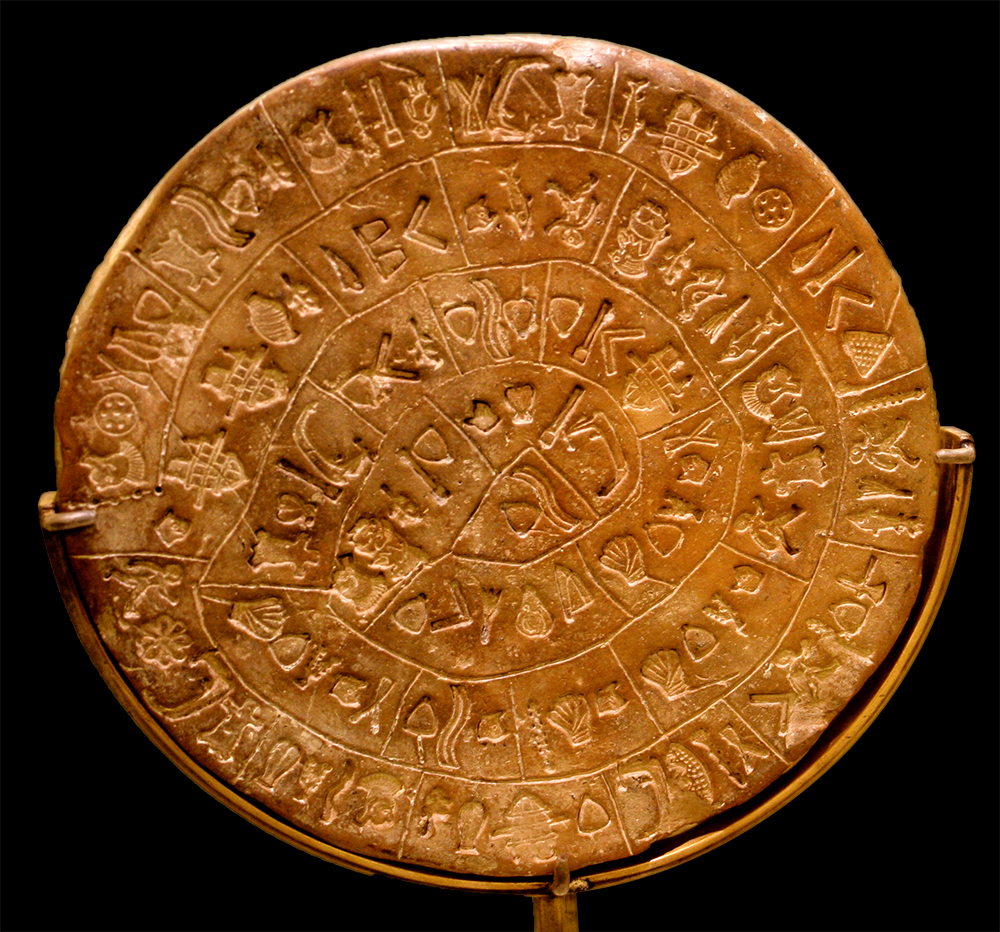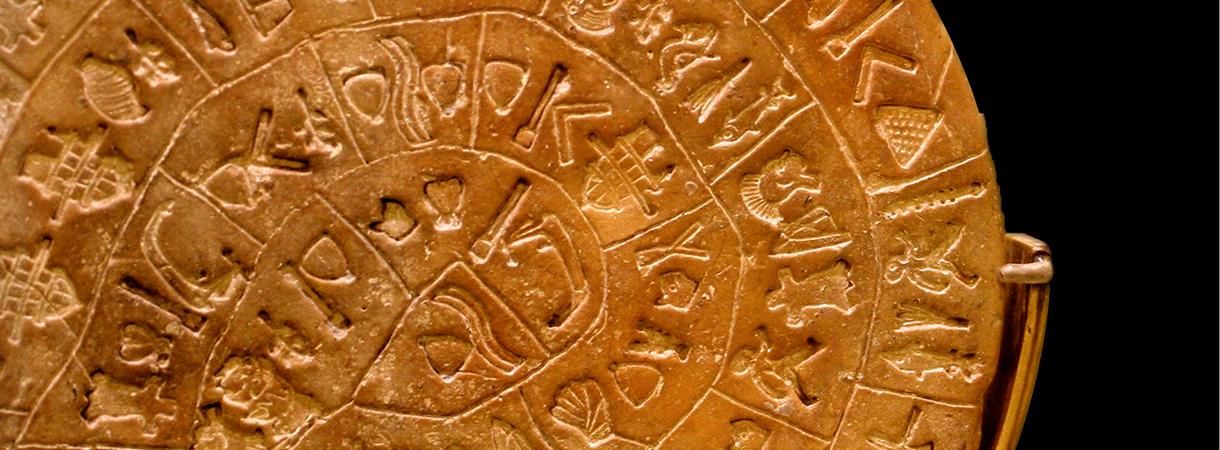
The First Movable Type
Phaestos was an ancient city on the island of Crete. It was inhabited from about 4000 BC. The area upon which Phaestos stood was the site where a curious clay disk, containing a sophisticated pictographic writing, was discovered. It was the Phaestos Disk, an archaeological finding, dating back to about 1700 BC. The first moveable type! Its purpose and meaning, and even its original geographical place of manufacture, remain disputed, making it one of the most famous mysteries of archaeology. An Italian archaeologist Luigi Pernier discovered this remarkably intact “dish” (about 15 cm in diameter and uniformly just over 1 cm thick) in the basement of the Minoan palace site of Phaestos during an excavation on July 3, 1908.
Physical Description
The inscription was made by pressing pre-formed hieroglyphic “seals” into the soft clay, in a clockwise sequence spiralling towards the disk’s center. It was then baked at high temperature. There are a total of 241 figures on the disc.
Many of the 48 different glyphs represent easily identifiable every-day things, including human figures, fish, birds, insects, plants, a boat, a shield, a staff, etc. In addition to these, there is a small diagonal line that occurs underneath the final sign in a group a total of 18 times. The disk shows traces of corrections made by the scribe in several places.
The Text
Strokes and Direction of Reading
There is a number of glyphs marked with an oblique stroke, the strokes are not imprinted but carved by hand and are attached to the first or last sign of a “word”, depending on the direction of reading. Their meaning is a matter of discussion. One hypothesis, supported by Evans, Duhoux, Ohlenroth and others, is that they were used to subdivide the text into paragraphs, but alternate meanings have been offered by other scholars.
The diverse epigraphical facts (overcuts, angulous points of the spirals, corrections, etc.) reveal that the text was written from the perimeter to the center. The scribe was “composing” his text as he was printing it. There is therefore no way to disassociate the direction of printing from the direction of reading.
Attempted Decipherment
The Phaestos Disk captured the imagination of many amateur archeologists. Many attempts have been made to decipher the code behind the disc’s glyphs. Historically, almost anything has been proposed, including prayers, a narrative or an adventure story, a “psalterion”, a call to arms, a board game, and a geometric theorem. Many enthusiasts still believe the mystery can be solved, as it is generally thought that there isn’t enough context available for meaningful analysis.